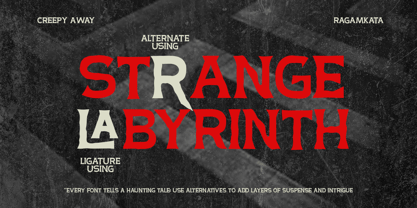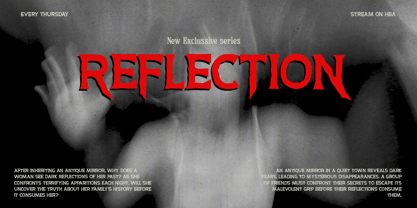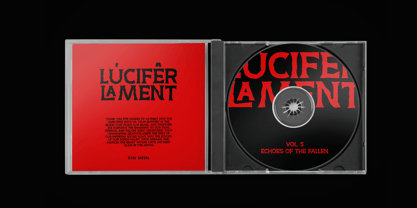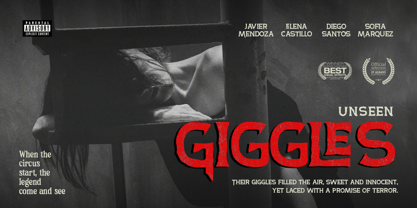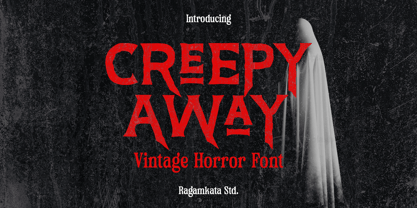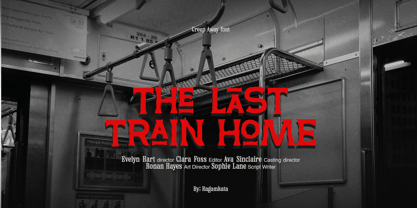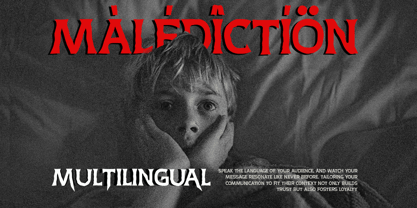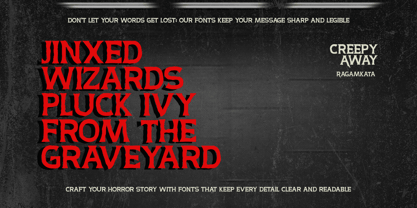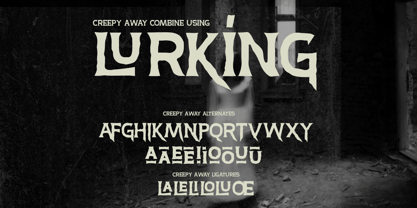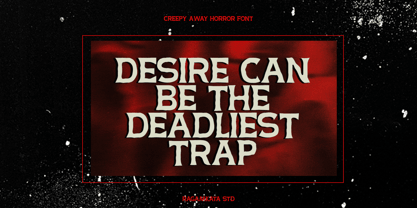
Creepy Away
by RagamKata
The Creepy Away Font Family was designed by Yogiswhara Dio Prakoso Riadi and published by RagamKata. Creepy Away contains 1 styles. More about this family
Creepy Away - Vintage Horror Font
"Creepy Away" is a vintage-inspired font with a chilling horror vibe. Its sharp, textured design exudes a spooky and mysterious atmosphere, making it perfect for a variety of eerie-themed projects. Whether you're creating Halloween invitations, horror movie posters, or haunting social media graphics, "Creepy Away" brings a retro yet terrifying charm to your designs.
This font is ideal for:
- Horror movie posters
- Halloween party invites and decorations
- Book or comic covers in thriller genres
- Spooky merchandise designs
- Social media posts with a scary theme
With "Creepy Away," you can effortlessly capture the essence of fear and intrigue, giving your projects a hauntingly memorable impact!
Designers: Yogiswhara Dio Prakoso Riadi
Foundry: RagamKata